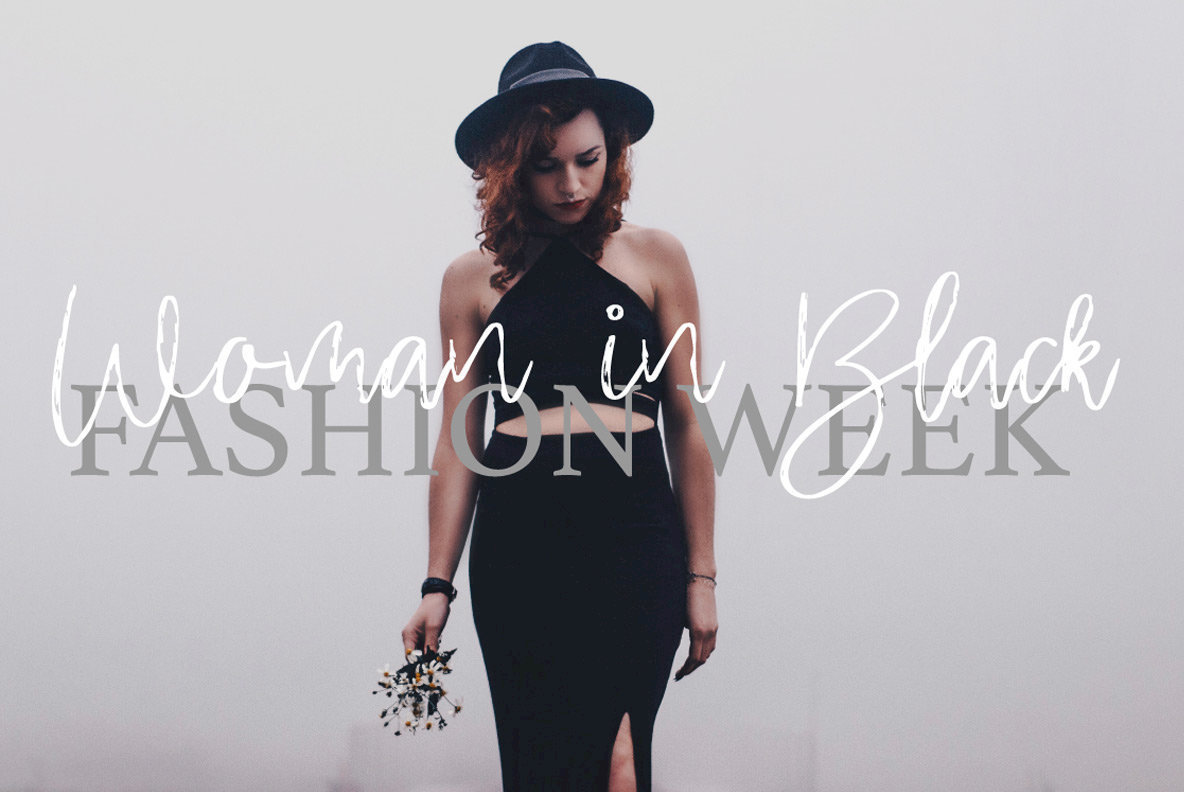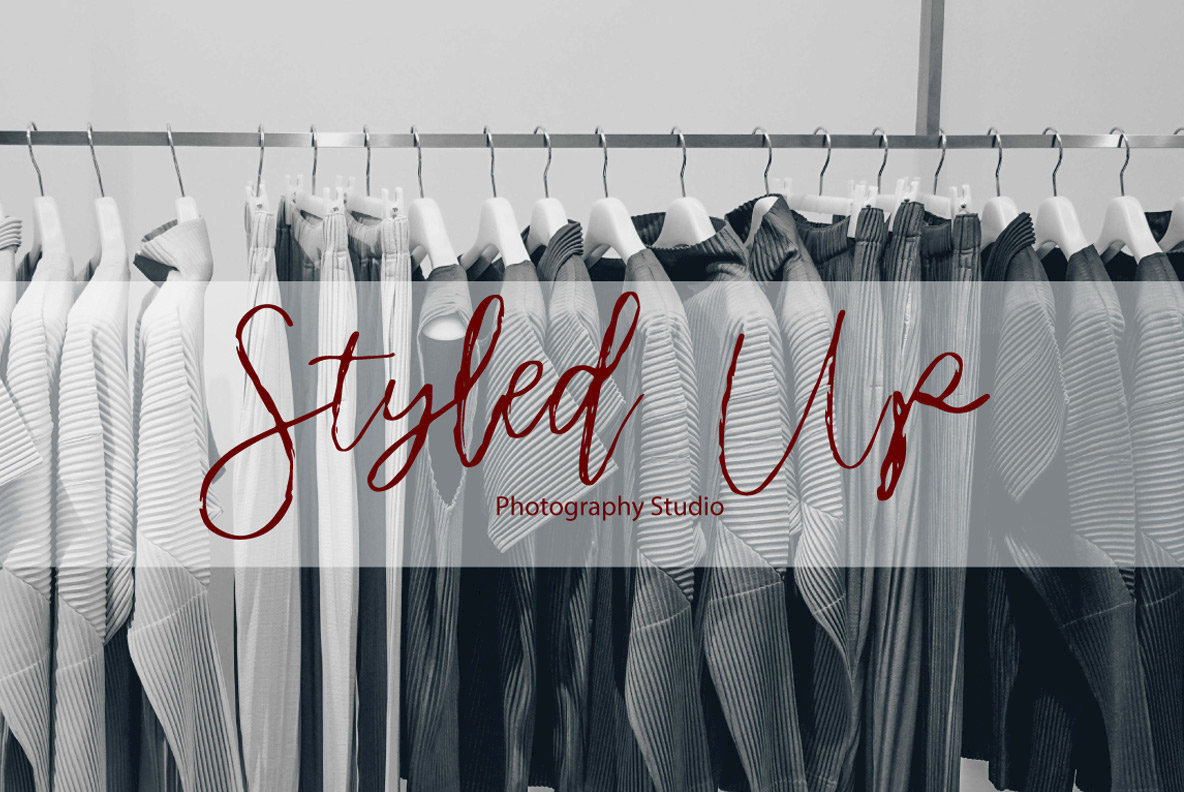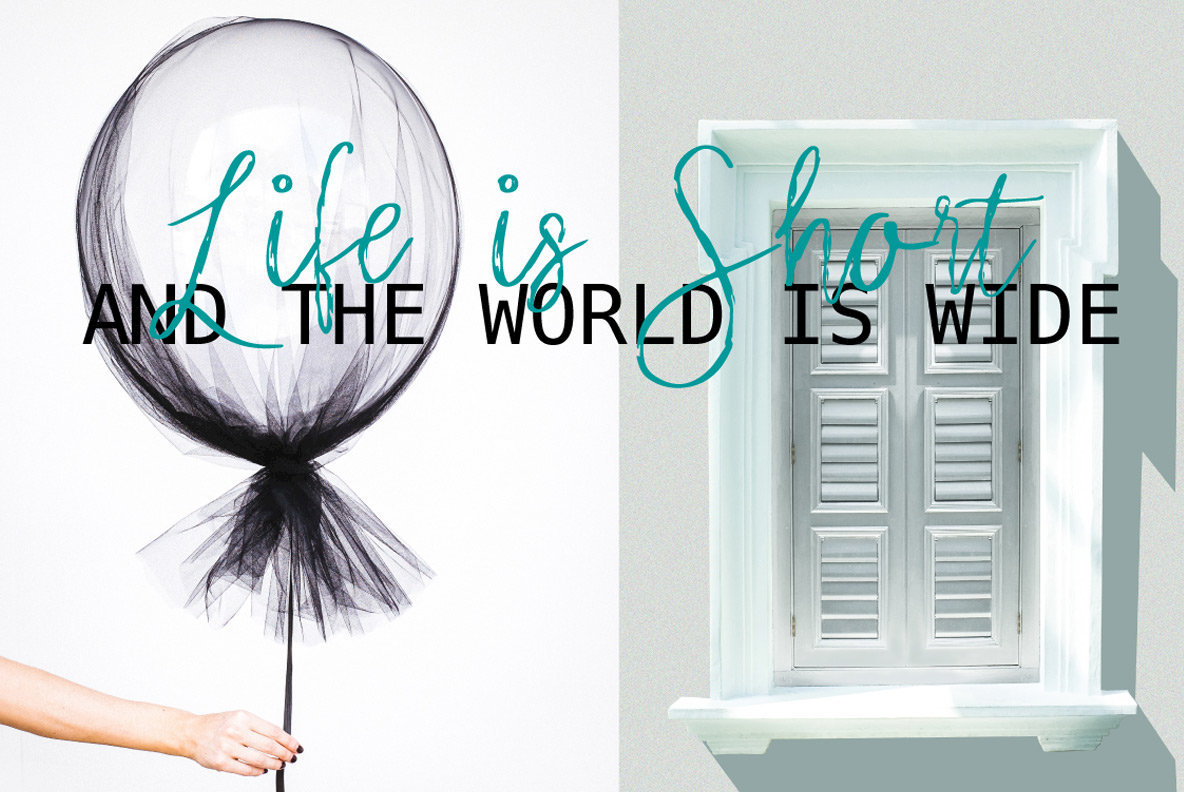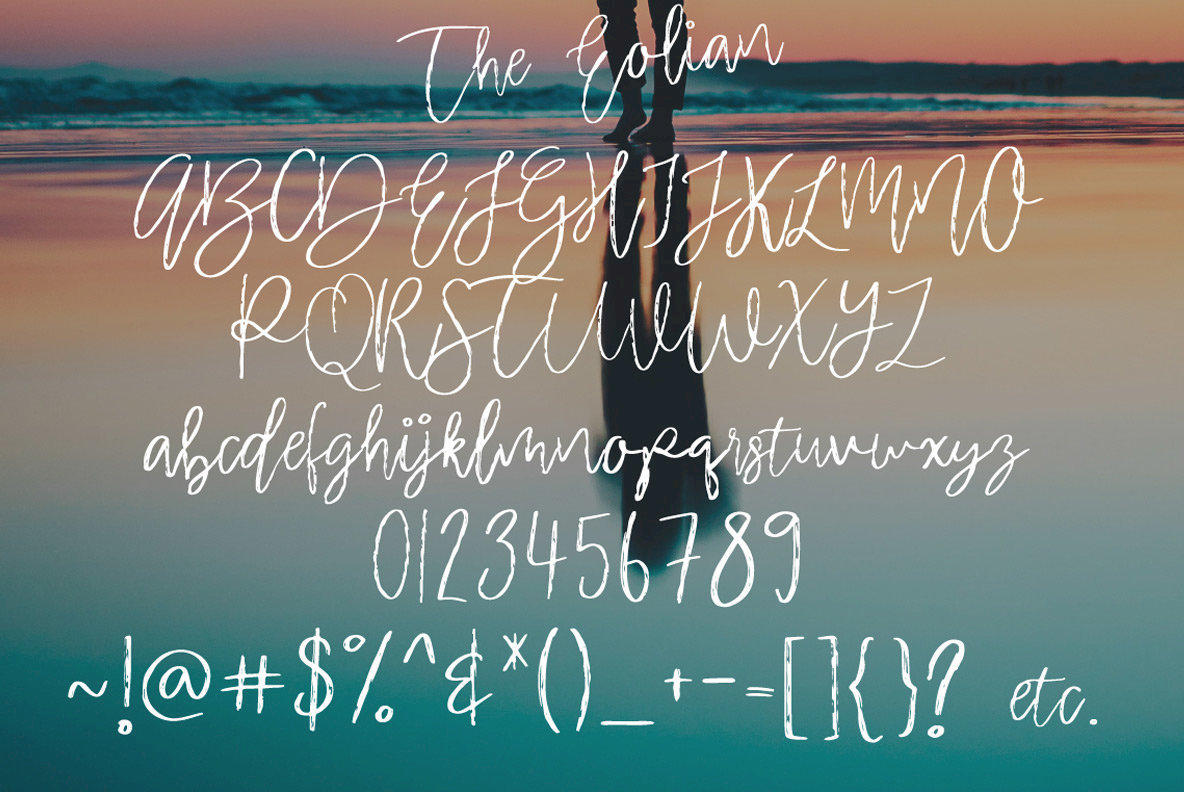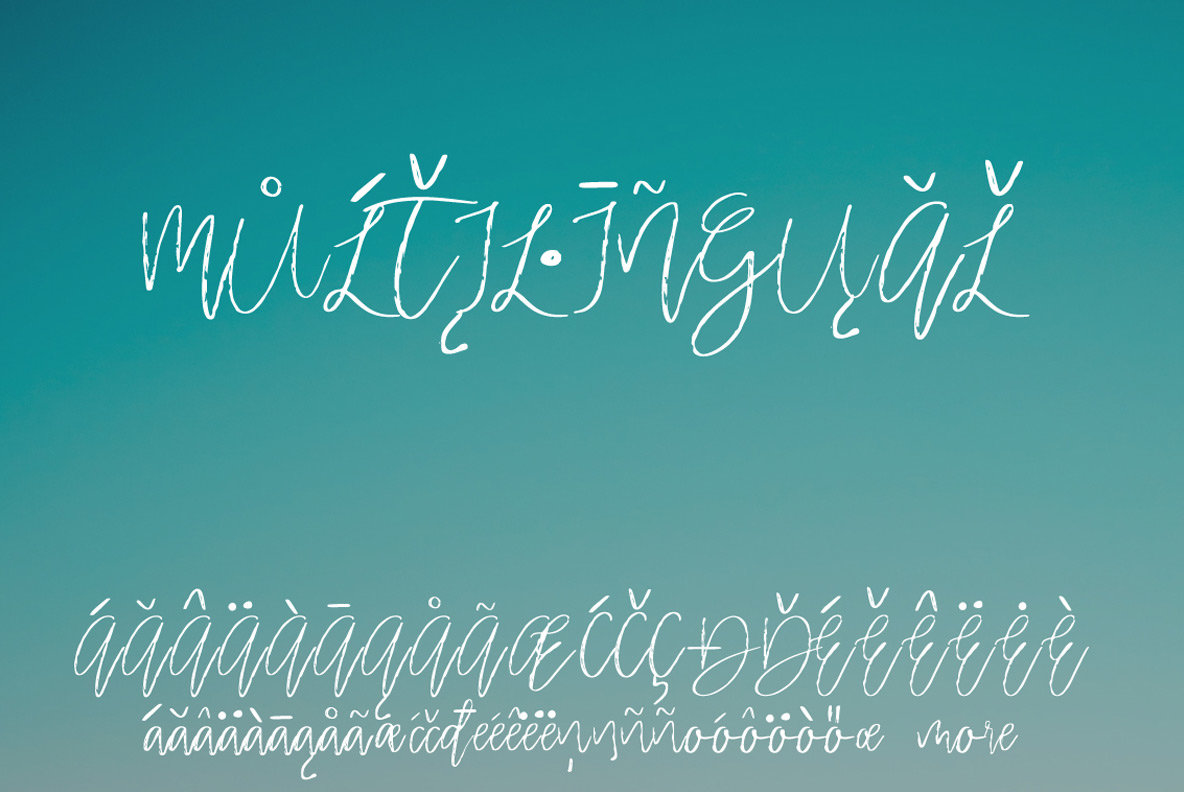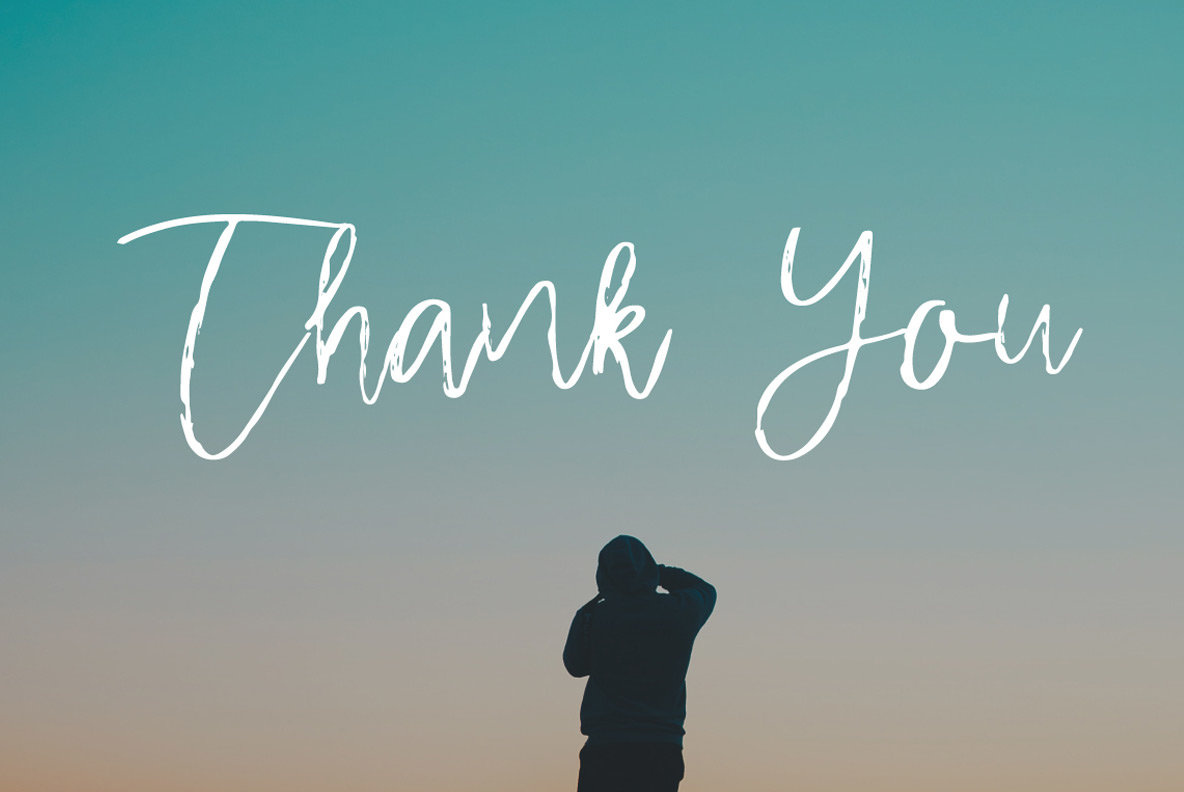
The Eolian: A Handwritten Elegance
The Eolian is an exquisite handwritten script font that seamlessly fits into any project. Whether designing wedding invitations, crafting a distinctive logo, or embellishing a personal blog, its delicate script adds a touch of sophistication and charm. Ideal for small businesses, book covers, and stationery, this font offers versatility in any creative endeavor.
• Perfect for weddings, blogs, and logos.
• Ideal for creating elegant frames and home décor.
• Suitable for book covers and stationery.
• Multilingual support with accented characters for global use.